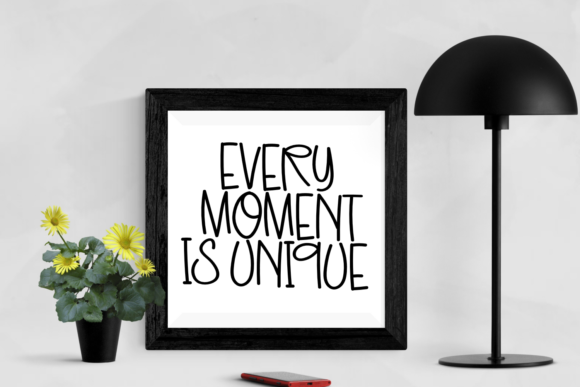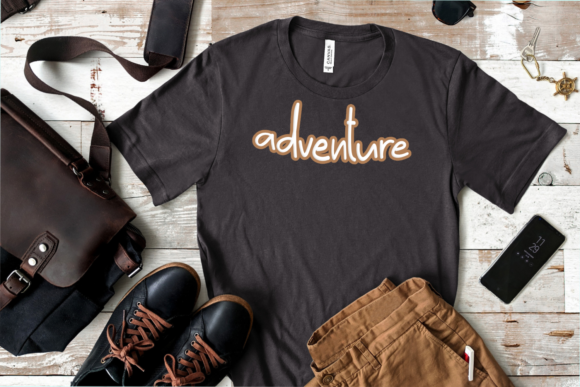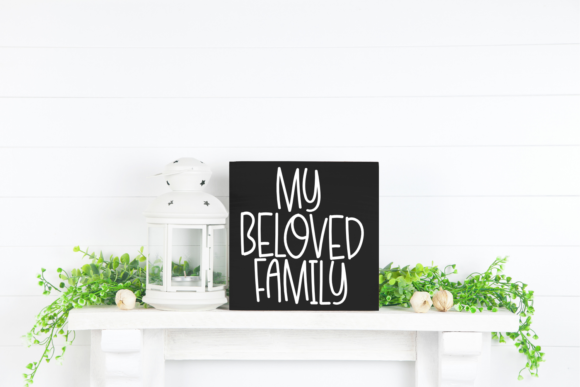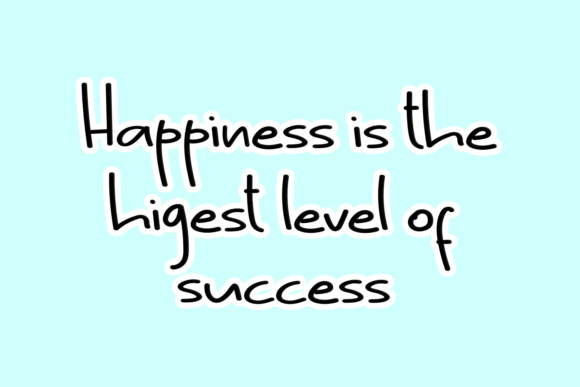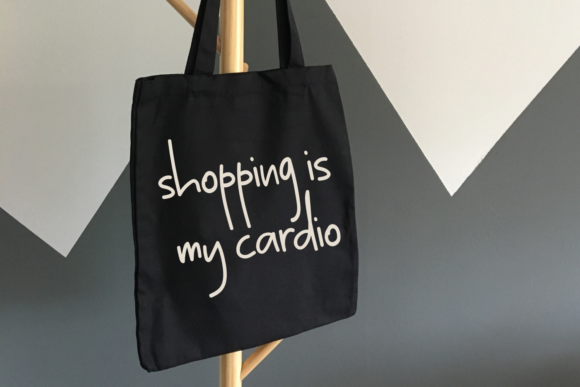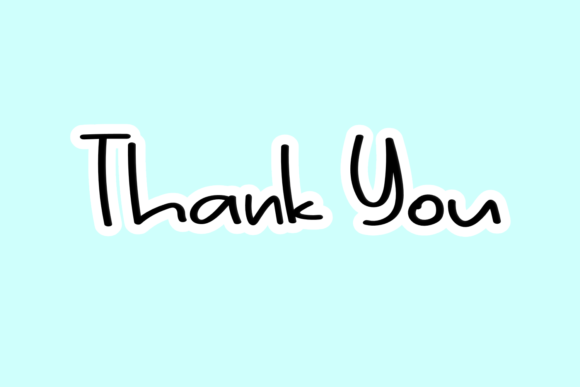
Discover the Delightful World of Typography with Fun With Me Font
Are you a designer, crafter, or simply a typography enthusiast looking for a unique and versatile font to elevate your projects? Look no further than the charming Fun With Me Font! This delightful handwritten font is designed to bring a touch of personality and whimsy to your creations, making it perfect for a wide range of applications.
What Makes Fun With Me Font So Special?
As a lightweight handwritten font, Fun With Me boasts a natural, simple, and easy-to-read look that makes it an excellent choice for both traditional media and web projects. Its effortless charm and fluid strokes evoke a sense of playfulness and friendliness, making it ideal for designs that require a personal touch.
Key Features of Fun With Me Font
• Lightweight and Easy to Read: The font’s clean and simple design ensures that your text remains legible, even at smaller sizes.
• Handwritten Charm: Fun With Me’s unique, handwritten style adds a touch of warmth and personality to your designs.
• Versatile and Adaptable: This font is suitable for a wide range of projects, from digital content to print materials.
• Web-Friendly: With its clean lines and simple structure, Fun With Me Font is optimized for use on the web, ensuring that your online content looks great on any device.
Whether you’re a seasoned designer or a crafty DIY enthusiast, Fun With Me Font offers a world of creative possibilities. Here are just a few ideas to get you started:
Digital Projects
• Blogging and Article Writing: Add a personal touch to your blog posts and articles with Fun With Me Font.
• Social Media Graphics: Create eye-catching social media graphics, quotes, and posters with this charming font.
• Web Design: Use Fun With Me Font to create a unique and engaging user experience for your website or landing page.
Print Projects
• Stationery and Invitations: Add a touch of whimsy to your stationery, invitations, and greeting cards.
• Posters and Flyers: Create bold and eye-catching posters and flyers with Fun With Me Font.
• Crafting and Scrapbooking: Use this font to add a personal touch to your scrapbooking and crafting projects.
Tips for Using Fun With Me Font
To get the most out of Fun With Me Font, here are a few tips to keep in mind:
Pair it with Other Fonts
Experiment with pairing Fun With Me Font with other fonts to create a unique and visually appealing combination. Try pairing it with a bold sans-serif font for a striking contrast.
Play with Colors and Textures
Don’t be afraid to experiment with different colors and textures to add depth and interest to your designs. Fun With Me Font looks great with bold colors and subtle textures.
Keep it Simple
Remember, sometimes less is more. Don’t overcomplicate your design – let the charm of Fun With Me Font shine through by keeping your design simple and clean.
Font Name Fun with Me Font
Author Creative Zone
In conclusion, Fun With Me Font is a delightful and versatile font that is perfect for designers, crafters, and anyone looking to add a touch of personality to their projects. With its natural, simple, and easy-to-read look, this font is sure to become a favorite in your typography collection. So why not give it a try and discover the fun and creative possibilities of Fun With Me Font?